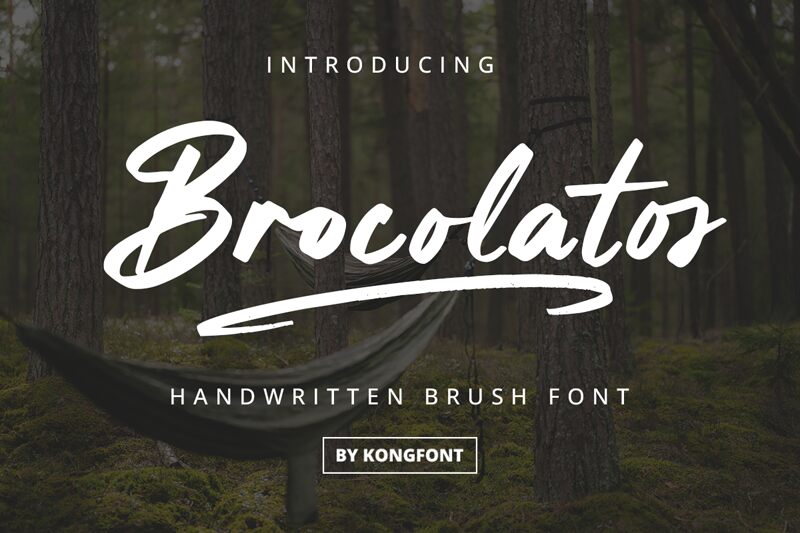
Brocolatos font is a free brush font designed by Kong Font. It is inspired by the informal and irregular characteristics of handwriting. The beautiful set of characters saves designers considerable time and effort, allowing them to avoid drawing characters separately themselves. Each letter comes with different shapes and forms that nonetheless create a breathtaking harmonious mix when put together.
The brilliant display font was particularly created for headlines, signage designs, logotypes, and even magazine covers. But Brocolatos’ brush touch is also an eye-pleaser with tote bags, brochures, book covers, and bookmarks. It can be used for merchandise items including mugs, stickers, pins, or apparel items like T-shirts. What’s nice about this font is that it can be paired up with others and still be able to maintain its genuine effect.